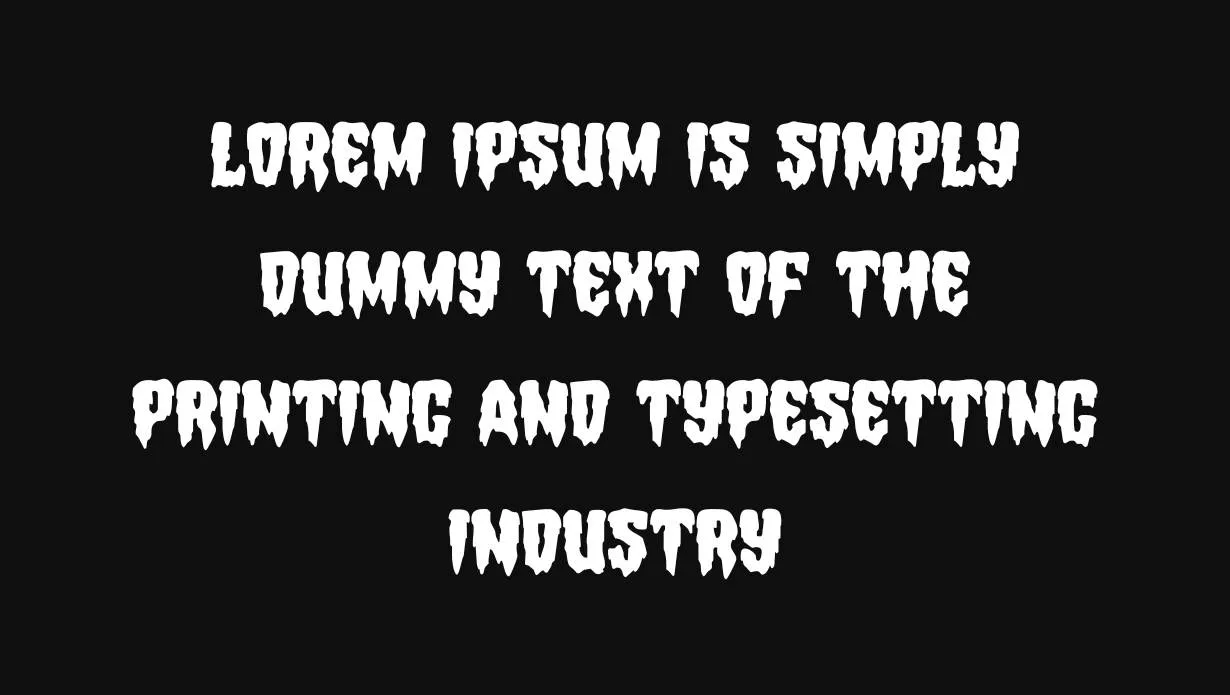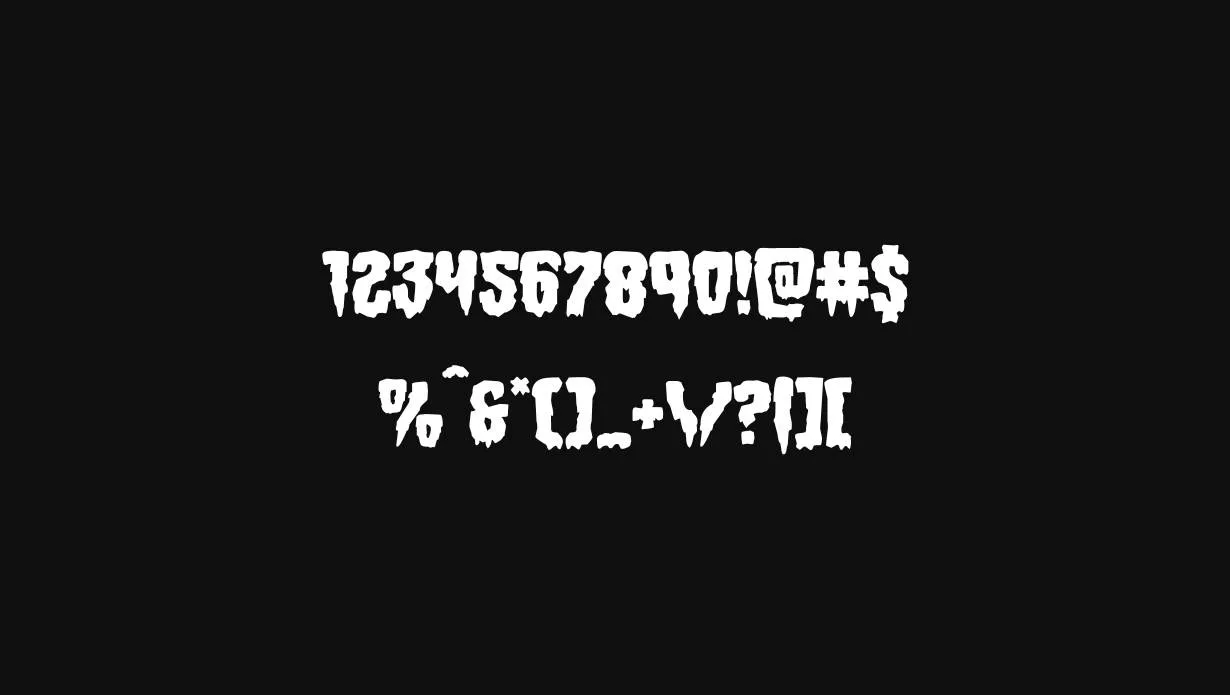
Hemogoblin Font is a bold and Fancy font that was created by Daniel Zadorozny and released by Iconic Fonts in the 1990s along with a huge variety of styles.
If you’re searching for a horror and scary yet easy-to-read typeface for your Halloween theme then this typeface is the best recommendation for you. It has TTF and OTF formats, it can be used in Canva, CorelDraw, Photoshop, Adobe, etc.
Hemogoblin Font Family